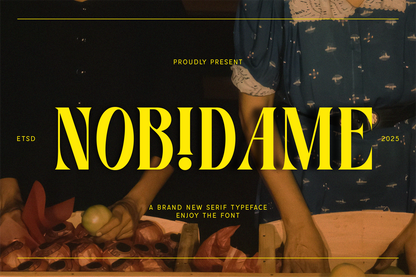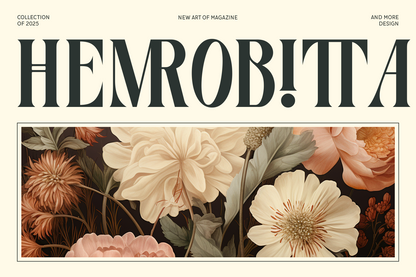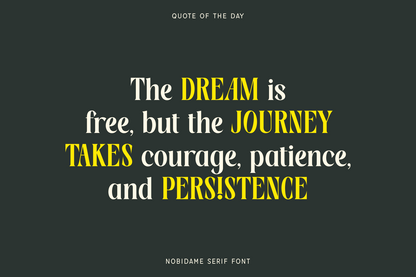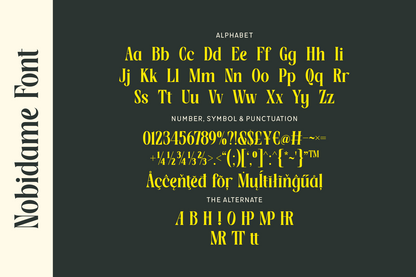
Nobidame is a high-contrast serif typeface that radiates elegance and bold sophistication. Its dramatic vertical stress and sharp curves make it an excellent choice for luxury branding, fashion editorials, magazine headers, and refined packaging. The unique exclamation-point substitution in the design adds a modern, creative twist that sets it apart.